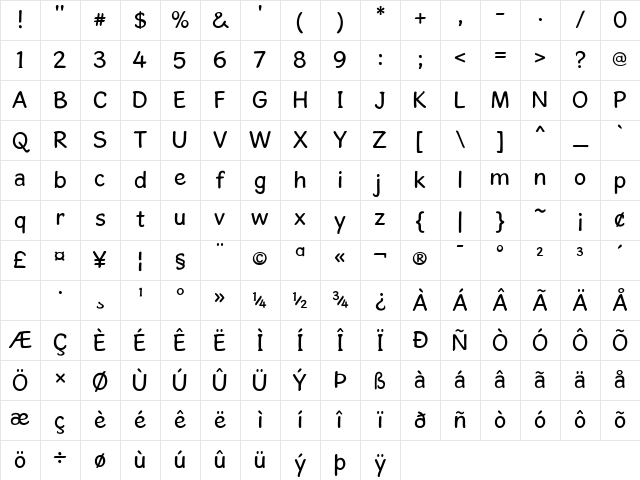
GosmickSans Regular
Design Context for GosmickSans
GosmickSans is a composed and adaptable typeface that performs quietly and consistently across a wide range of design contexts.